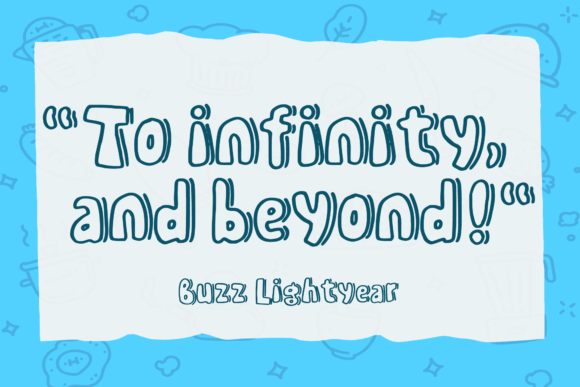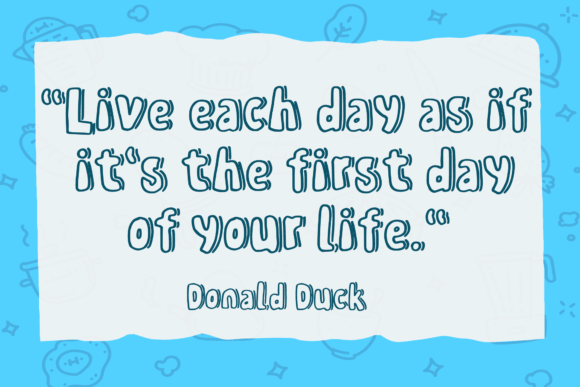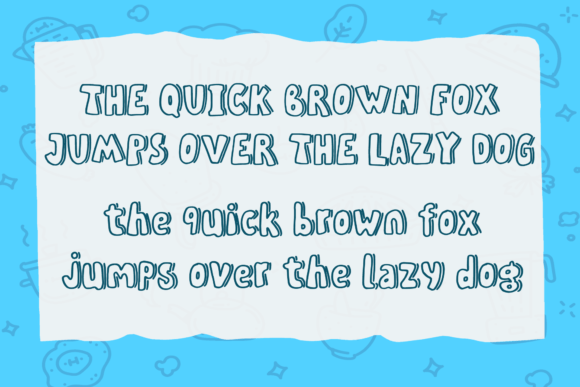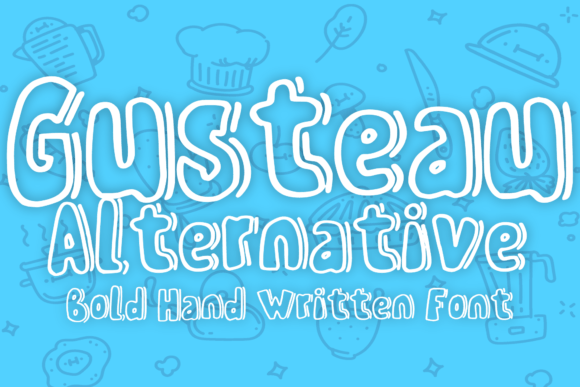
Gusteau Alternative Font: The Perfect Choice for Your Creative Projects
Are you looking for a font that can add a touch of playfulness and casualness to your designs? Look no further than the Gusteau Alternative font! This fun and bold display font is perfect for a wide range of creative projects, from t-shirts and kids’ book designs to greeting cards, stickers, and posters.
What Makes Gusteau Alternative Font So Special?
Gusteau Alternative font is a versatile and charming typeface that can instantly elevate your designs. Its unique and quirky style makes it perfect for projects that require a casual and laid-back touch. Whether you’re a designer, crafter, or DIY enthusiast, this font is sure to become a favorite in your collection.
Key Features of Gusteau Alternative Font
- Fun and Bold Design: Gusteau Alternative font features a bold and playful design that’s perfect for making a statement.
- Highly Versatile: This font can be used for a wide range of projects, from digital designs to print materials.
- Casual and Laid-Back Style: Gusteau Alternative font is perfect for projects that require a casual and laid-back touch.
- Easily Readable: Despite its bold design, Gusteau Alternative font is easily readable, making it perfect for body text and headings.
Uses of Gusteau Alternative Font
Gusteau Alternative font is perfect for a wide range of creative projects, including:
- T-Shirts and Apparel: Add a playful touch to your t-shirt designs with Gusteau Alternative font.
- Kids’ Book Designs: Create engaging and fun kids’ book designs with this charming font.
- Greeting Cards: Add a personal touch to your greeting cards with Gusteau Alternative font.
- Stickers and Posters: Create eye-catching stickers and posters with this bold and playful font.
- Digital Designs: Use Gusteau Alternative font in your digital designs, such as social media graphics, blog posts, and more.
Tips for Using Gusteau Alternative Font
Here are some tips for getting the most out of Gusteau Alternative font:
- Experiment with Colors: Gusteau Alternative font looks great in a variety of colors, so don’t be afraid to experiment and find the perfect hue for your design.
- Pair with Other Fonts: Try pairing Gusteau Alternative font with other fonts to create a unique and interesting design.
- Use for Headings and Titles: Gusteau Alternative font is perfect for headings and titles, but you can also use it for body text for a more playful look.
Gusteau Alternative font is a fun and versatile typeface that’s perfect for a wide range of creative projects. Its bold and playful design makes it ideal for adding a casual touch to your designs. Whether you’re a designer, crafter, or DIY enthusiast, this font is sure to become a favorite in your collection. So why wait? Download Gusteau Alternative font today and start creating your own lovely designs!